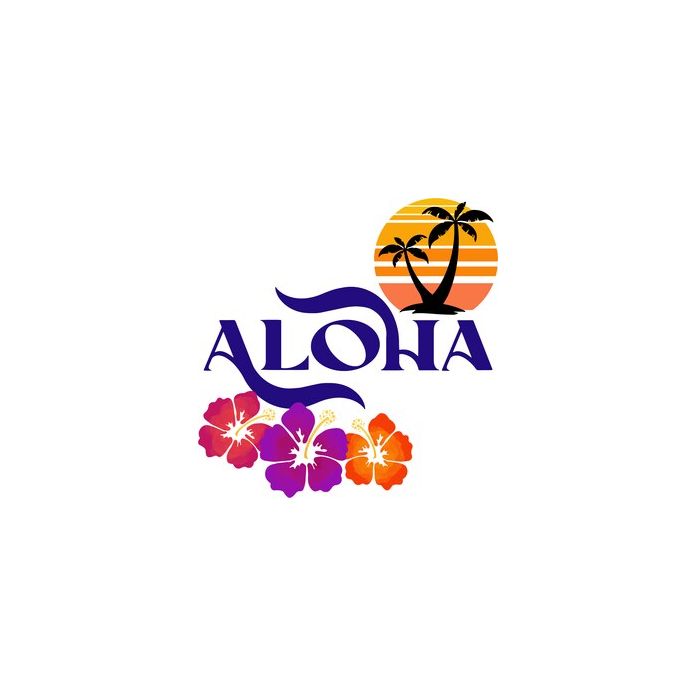
Aloha Font with Dingbats
A fun, summery font with dingbats. Includes letters, embellished letters, and designs of flowers, surfboard, VW bus, sea turtle, dolphin, and more.